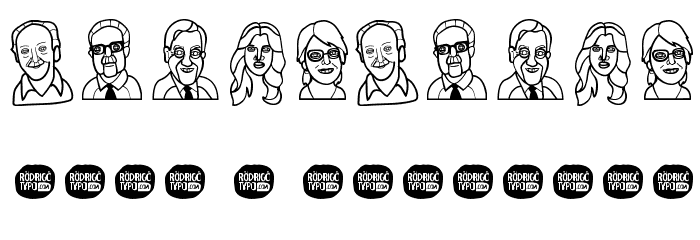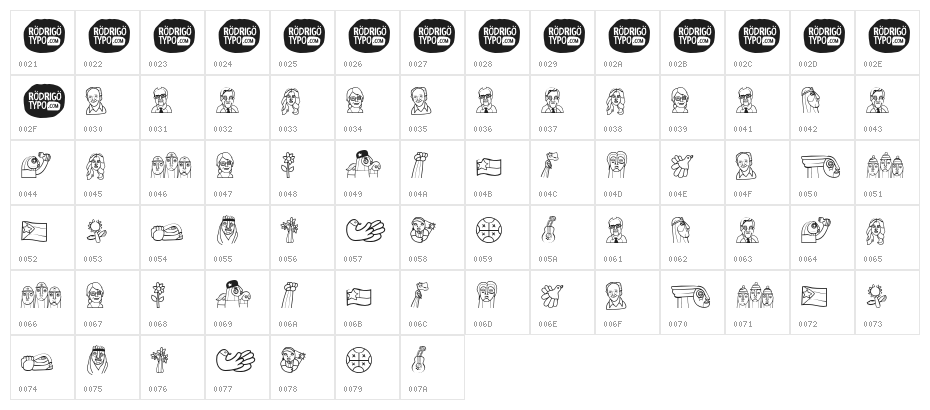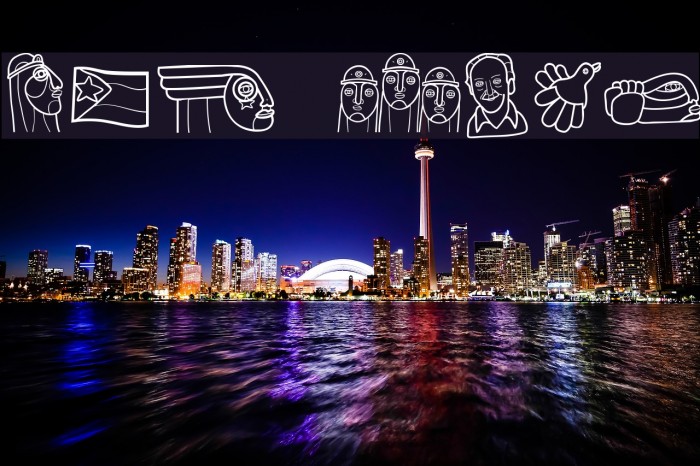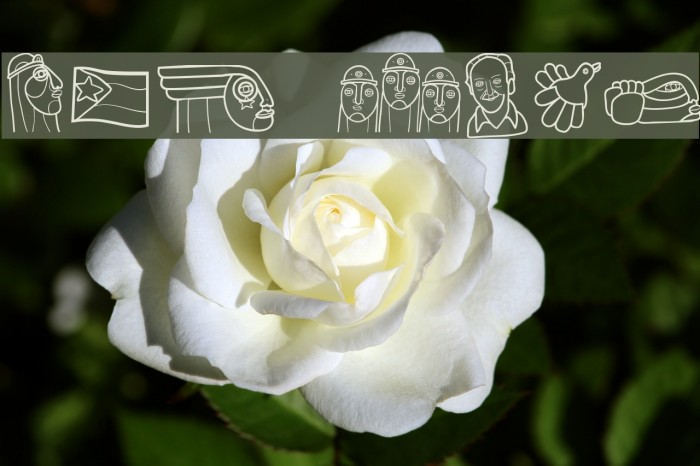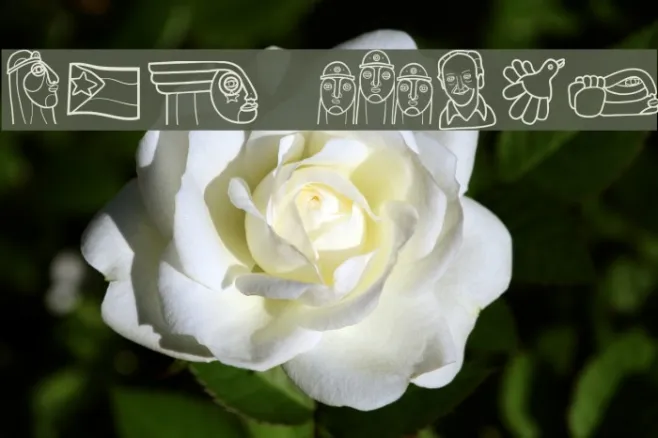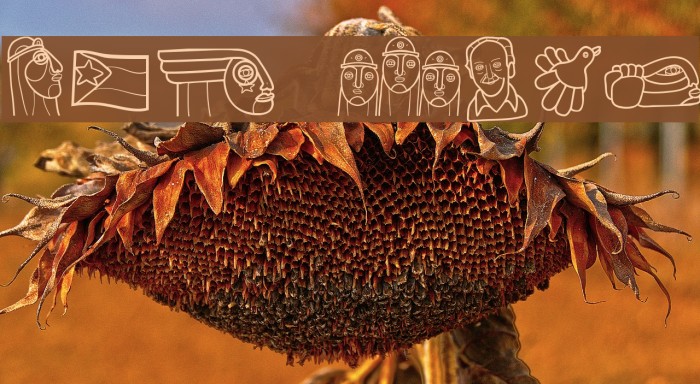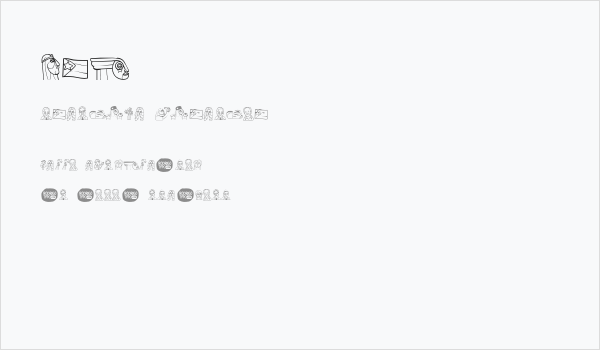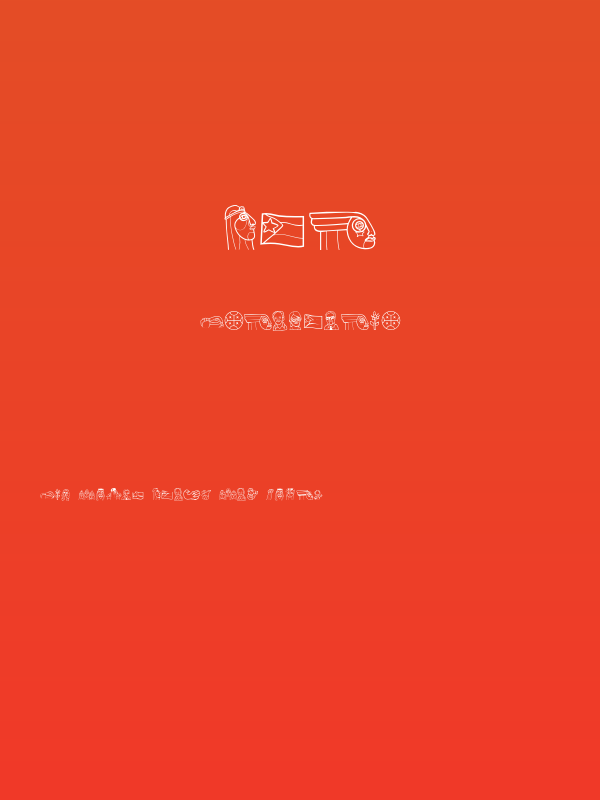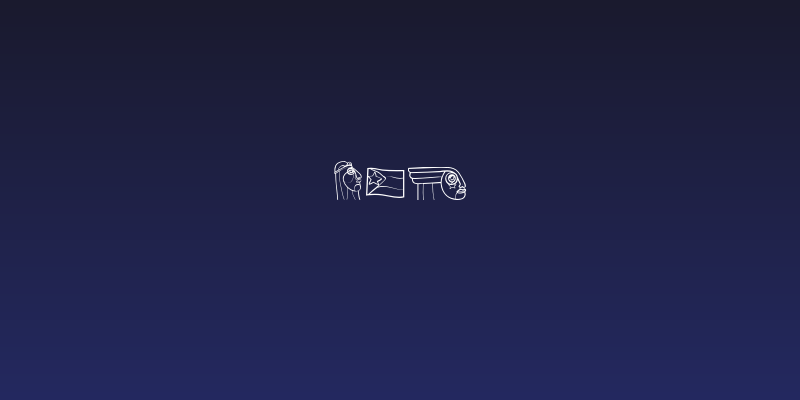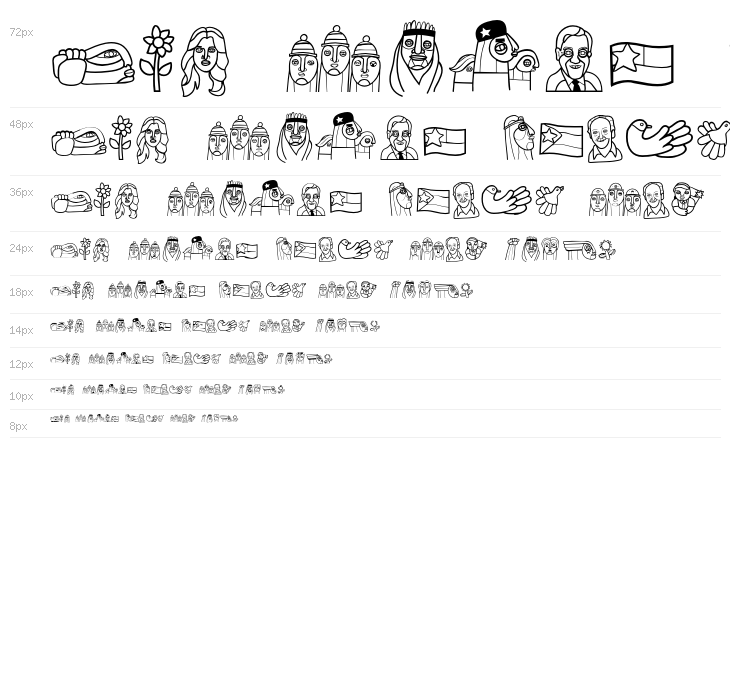
BRP Font
BRP Description
A decorative dingbat font featuring hand-drawn, abstract portraits, objects, and symbols with a sketch-like, whimsical style. The glyphs are unique illustrations rather than traditional alphanumeric characters.
| Overall Style | Decorative, Whimsical, Artistic |
| Use Case | Illustrative accents, visual storytelling, creative branding, decorative elements. |
| Proposed Projects | Posters, editorial illustrations, branding for creative projects, album covers, zines, art books. |